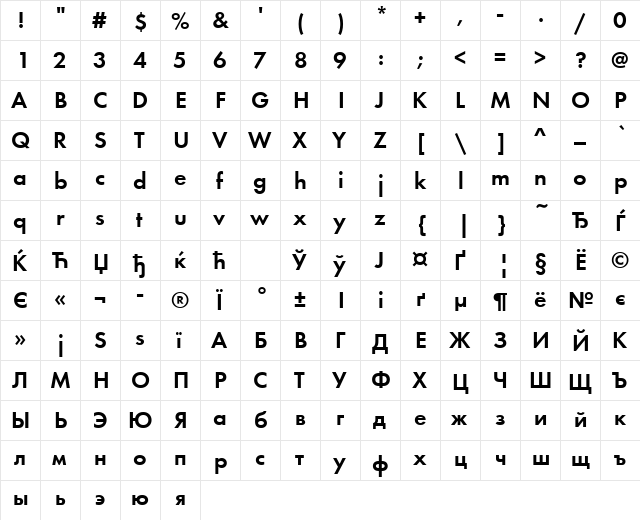
FuturaDemiCTT Normal Font Preview
FuturaDemiCTT Normal
Design Context for FuturaDemiCTT Typeface
FuturaDemiCTT has a distinctly futuristic character, with geometric precision and clean angles that feel at home in technology, gaming, and sci-fi contexts.